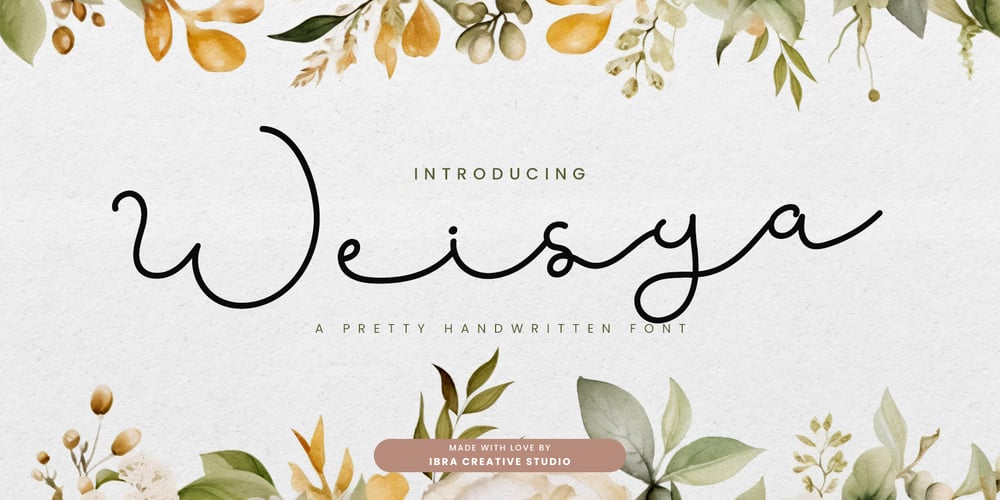
Weisya Font Family was designed by Roisatul Azizah and published by IbraCreative. Weisya contains 1 styles and family package options. Weisya is a charming and pretty handwritten font that effortlessly captures a sense of delicate beauty. With its graceful and flowing letterforms, each character in Weisya exudes a whimsical and feminine elegance. The slight variations in strokes and the gentle curves give this font a natural and handcrafted feel, making it a perfect choice for projects that seek a touch of romanticism and sophistication. Weisya adds a soft and inviting charm to wedding invitations, beauty products, and stylish stationery. Its versatility shines through as it effortlessly blends vintage charm with modern sensibilities, making Weisya an enchanting option for those looking to infuse their designs with a touch of lovely handwritten appeal.